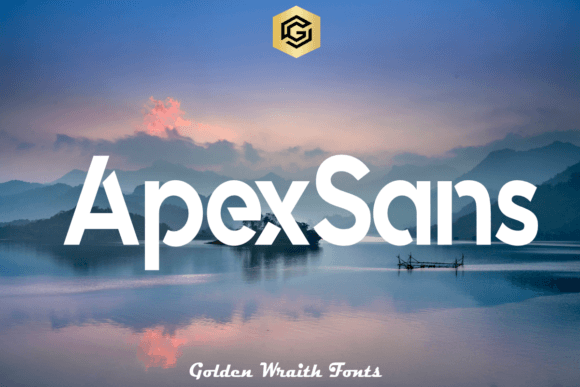
The Perfect Font for Making a Statement
Have you ever stared at a blank page, wondering which font will bring your creative vision to life? I know I have. It’s that moment of hesitation, weighing the options, and hoping to find the perfect combination of style and substance. And then, it hits you – the perfect font that elevates your design and makes it impossible to ignore.
Enter the Apexsans Font, a bold and modern sans serif font that radiates strength and confidence. With clean, geometric letterforms, it offers a dynamic and impactful appearance, ideal for projects requiring attention and clarity. As a designer, you know the importance of choosing a font that not only looks great but also gets your message across. That’s where the Apexsans Font comes in – a versatile and contemporary font that’s perfect for making a statement in print and digital media.
- Font Family: Apexsans is a sans-serif font family designed for optimal readability and versatility.
- Font Size: Apexsans is designed to be highly legible at various font sizes, with optimal results at 10-24 points.
- Unique Characteristics: Apexsans features a clean, modern design with subtle rounded edges, giving it a friendly and approachable feel.
Designer Review: Apexsans Font
Overall, I think the Apexsans Font is a solid choice for digital design projects. Here’s what works well:
- ✨ High legibility: The font is incredibly easy to read, even at small sizes.
- ✨ Clean and modern aesthetic: The Apexsans Font has a sleek, contemporary feel that works well for modern designs.
- ✨ Versatile: The font comes in a range of weights, making it suitable for a variety of design applications.
However, I do have some concerns:
- ⚠️ Limited language support: The font doesn’t include as many languages as some other sans-serif fonts.
- ⚠️ Not ideal for body text: While the font is great for headings and titles, it may not be the best choice for large blocks of body text.
- ⚠️ Some users may find it too plain: The font’s simplicity can be a double-edged sword – some users may find it too boring.
Overall, I think the Apexsans Font is a great choice for designers who need a clean, modern font for headings and titles. However, it may not be the best fit for projects that require extensive language support or large blocks of body text.
Tips for Getting the Most Out of Apexsans Font
Here are some tips to help you get the most out of the Apexsans font:
- Use it for modern and sleek designs.
- Pair it with bold and sans-serif fonts for a striking contrast.
The Apexsans font is ideal for:
- Corporate branding and marketing materials.